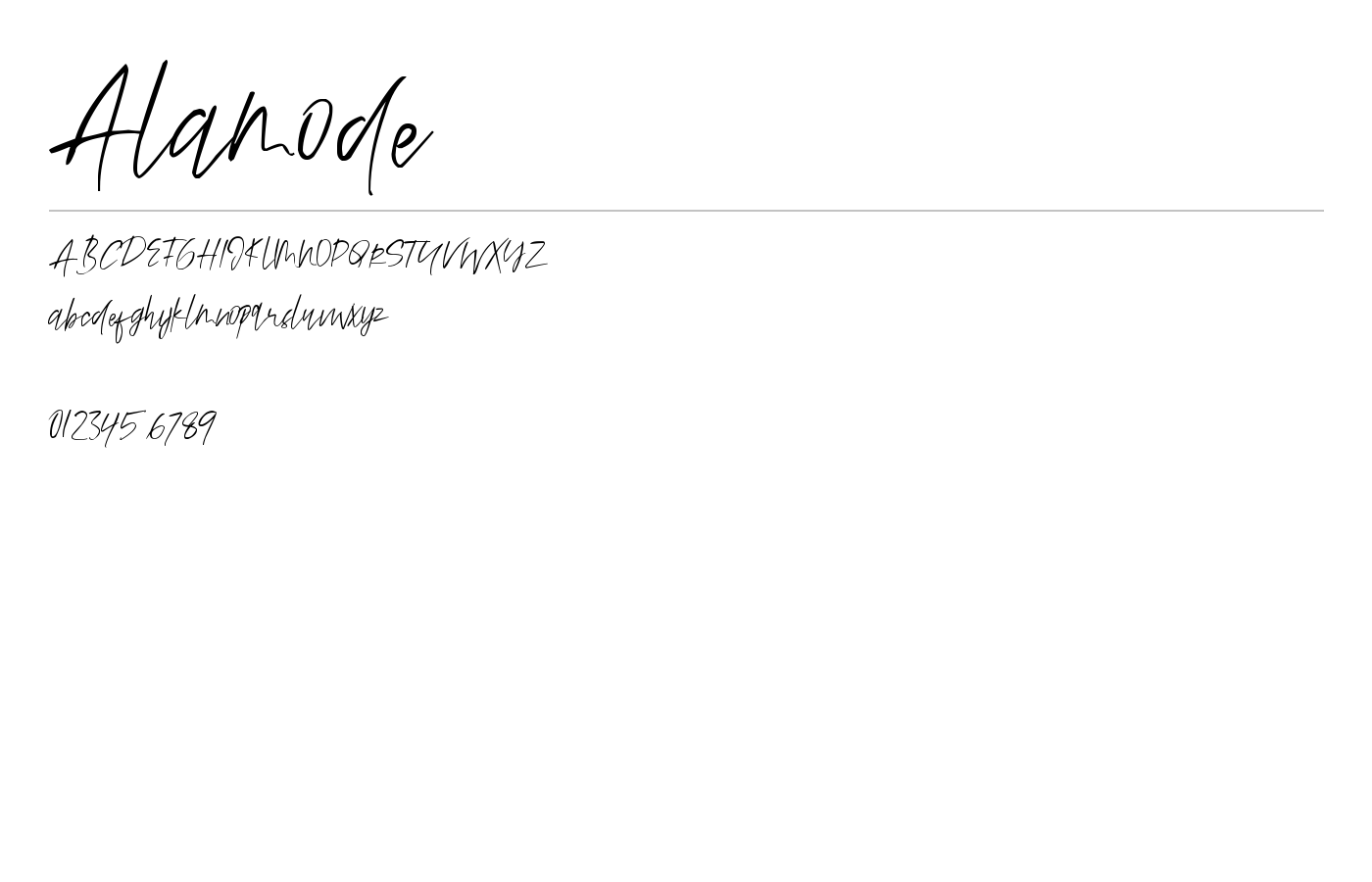
Alamode is a delicate, handwritten script font with a modern and casual feel. Its slender, slightly irregular strokes and airy letter spacing give it a personable and artistic charm, making it ideal for creative projects that need an elegant yet approachable touch. This font works wonderfully for branding, invitations, and editorial designs where a natural, stylish signature look is desired.
Alamode Font